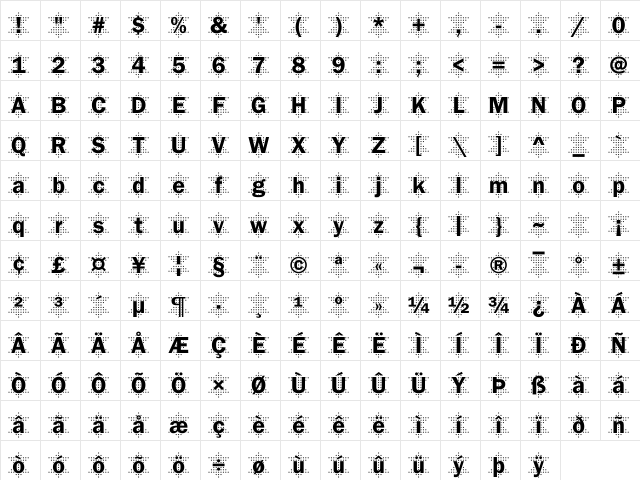
DTCFranklinGotM47 Regular
Design Context for DTCFranklinGotM47 Typeface
DTCFranklinGotM47 offers clean, dependable letterforms without strong stylistic allegiance, making it a practical choice for designers who need flexibility.
Pro Tip: Use DTCFranklinGotM47 in both headline and body roles to test its range before committing to a single application.